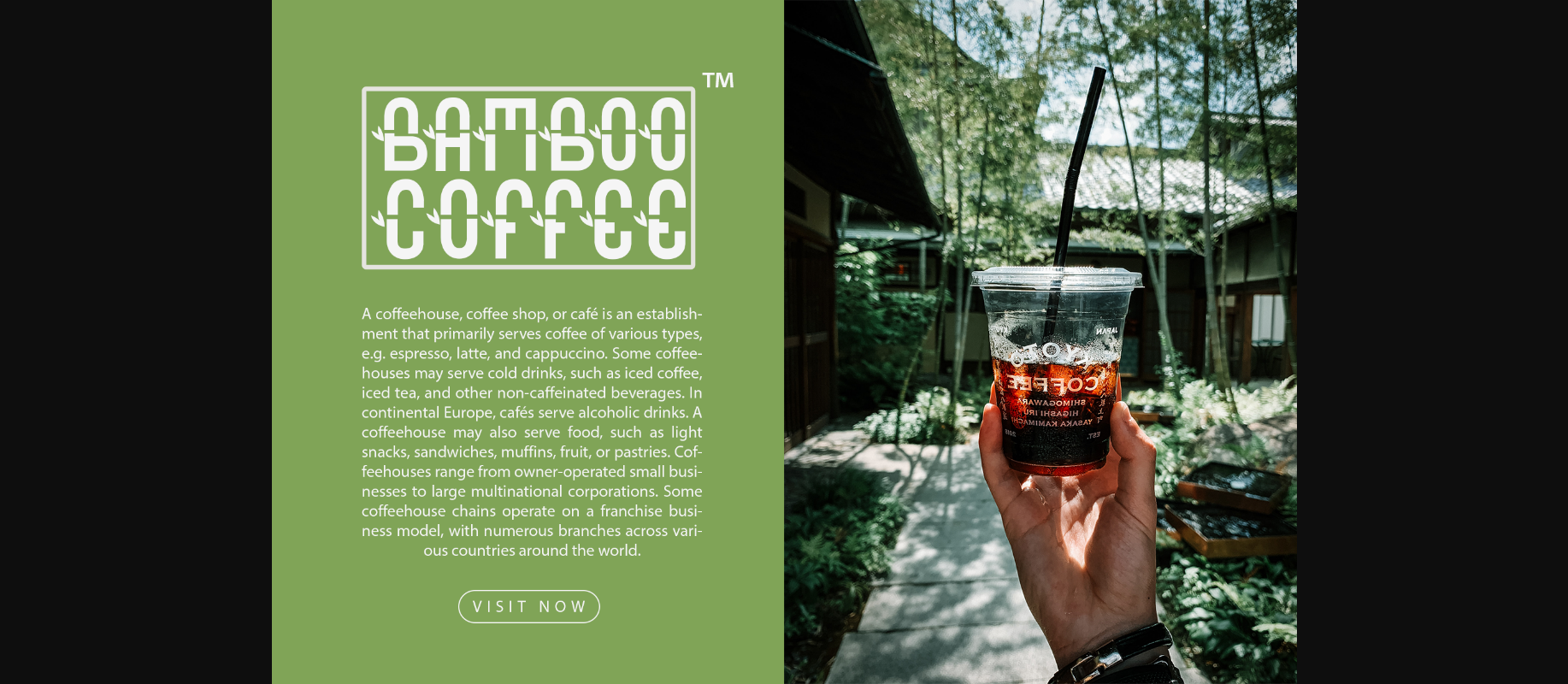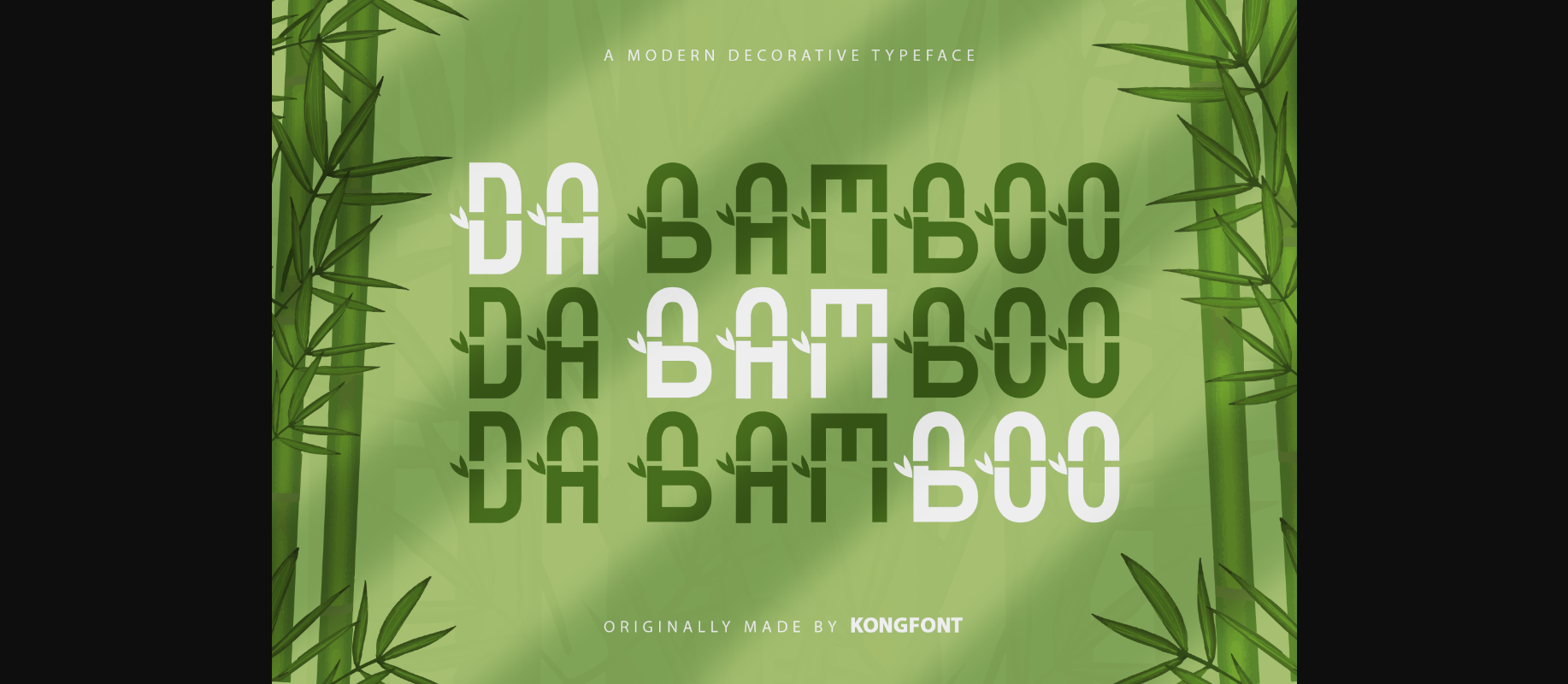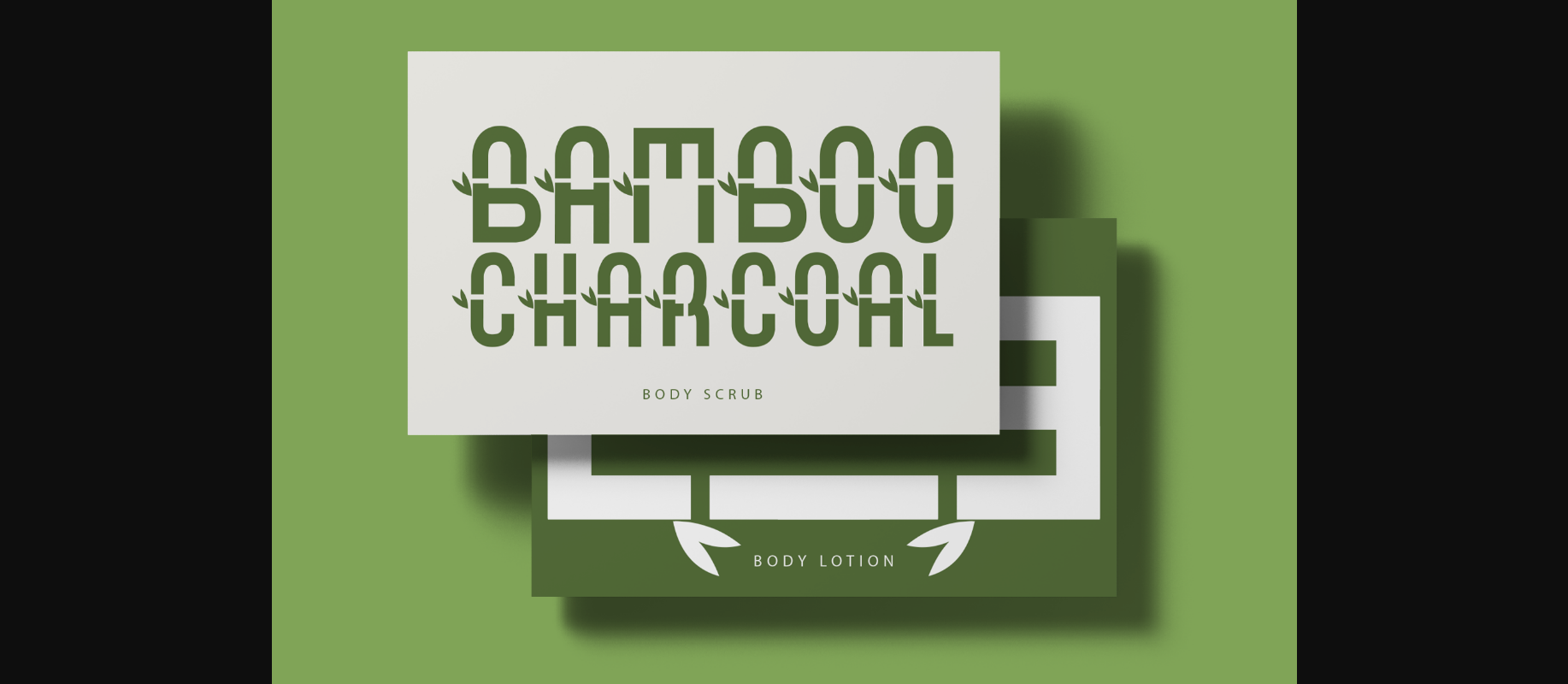
About Da Bamboo Font
Da Bamboo is a modern and playful handwritten script font. It’s great for crafters and designers. Compatible with tools such as Photoshop and Silhouette design studio. its playfulness can make it great for creative projects.